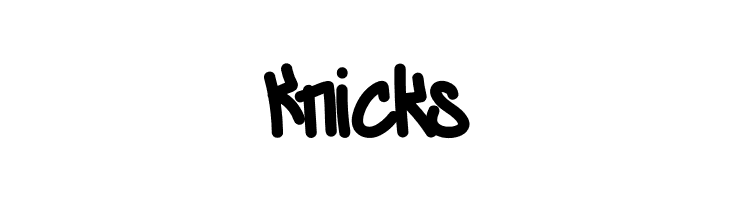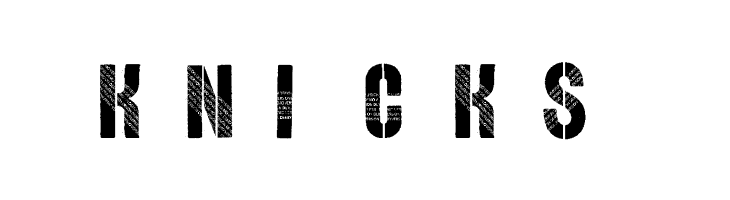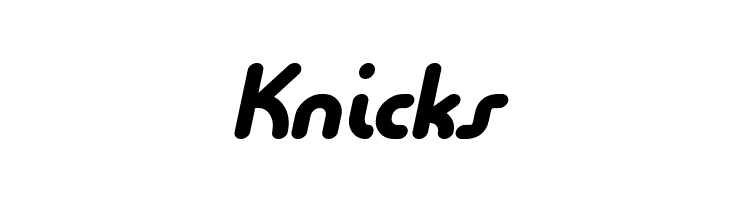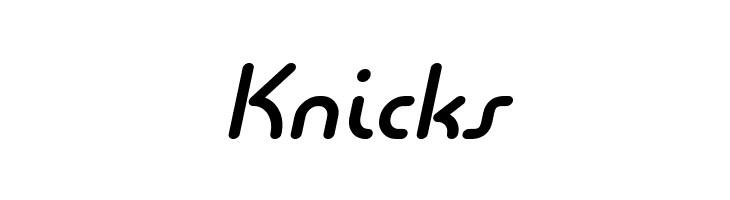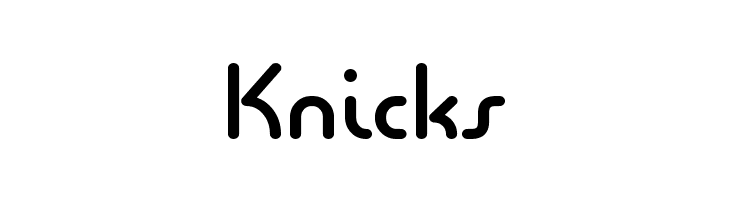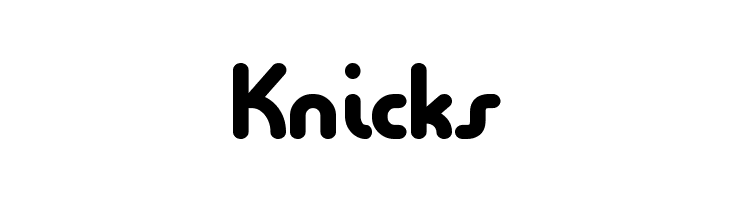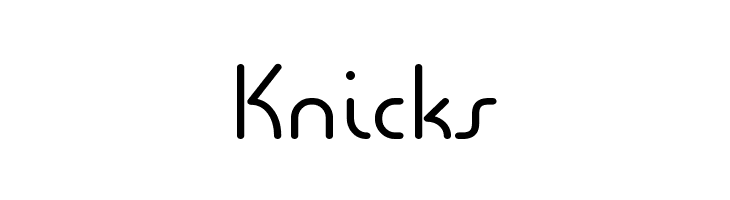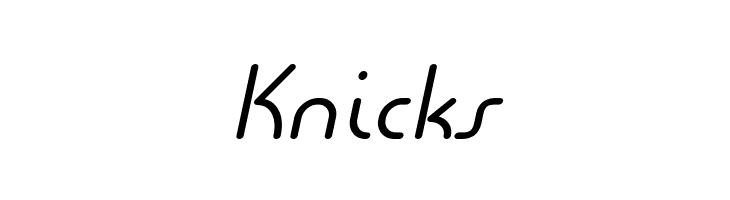
A bold, graffiti-inspired font with a playful and energetic style.
A bold, rounded font with a playful and approachable style.
A bold, italicized font with smooth, rounded characters and a modern, dynamic feel.
A playful, rounded font with bold, smooth curves.
A smooth, rounded, and slightly italicized font with a playful modern style.
A modern, rounded font with a clean and minimalist design.
A bold, rounded font with smooth curves and a modern, approachable style.
A bold, italicized font with rounded edges and a modern, playful style.
A sleek, modern italic font with smooth curves and consistent stroke widths.